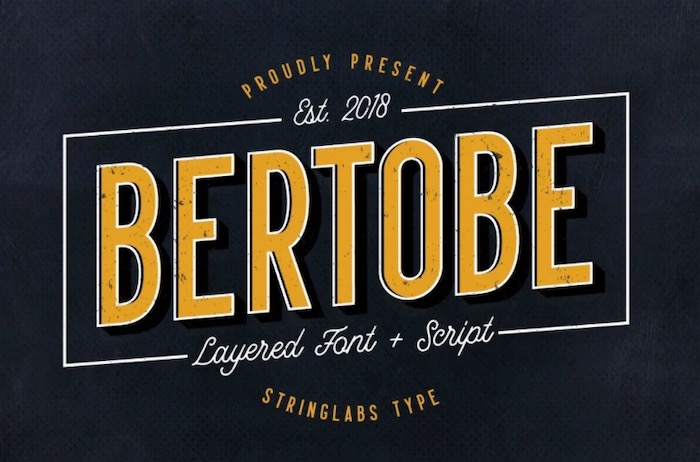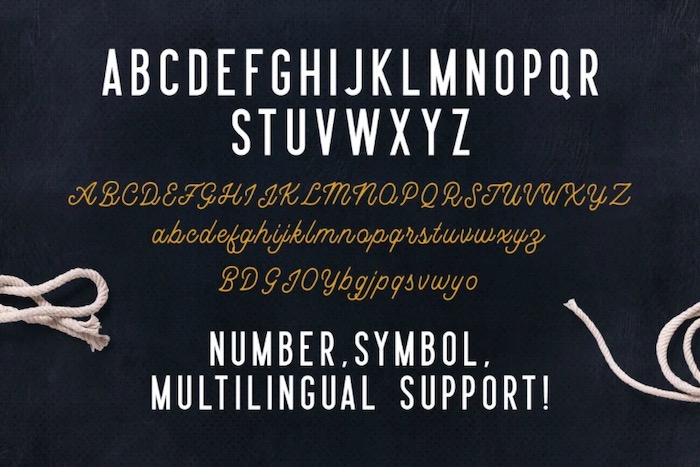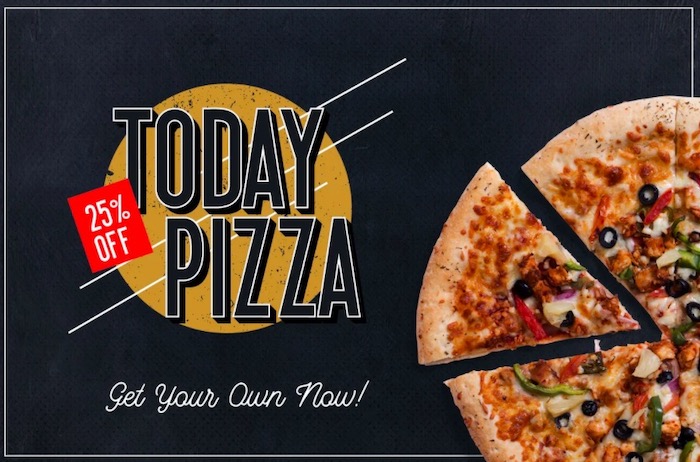
Bertobe is an elegant & classy Layered Font. It was created and shared by Littlehand along with many different gorgeous styles like Outline, Regular, Extrude, and a normal handwritten style.
Bertobe Sans Script Font
Font family: Bertobe Font
Full font name: Bertobe Font Duo
Designer Name: Littlehand